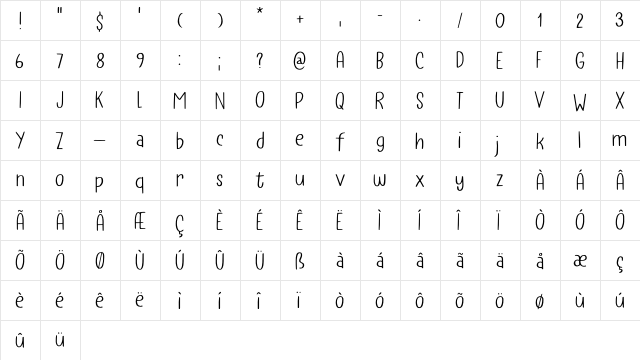
Instant Harmony Lite DEMO Regular
| Foundry | David Kerkhoff |
| Designer | David Kerkhoff |
Design Context for Instant Harmony Lite DEMO Typeface
Instant Harmony Lite DEMO takes a measured approach to typography — its balanced proportions and neutral character make it a reliable workhorse for both digital and print work.